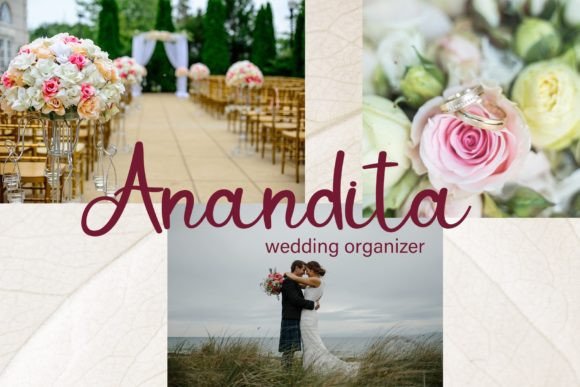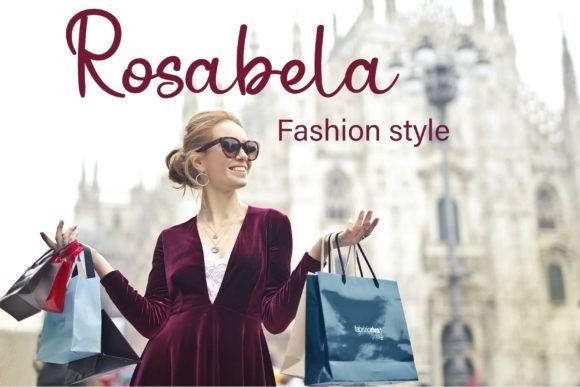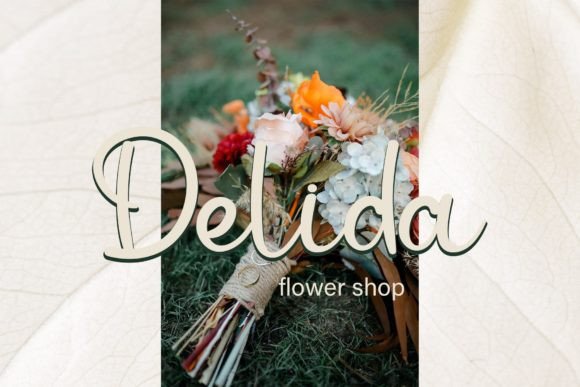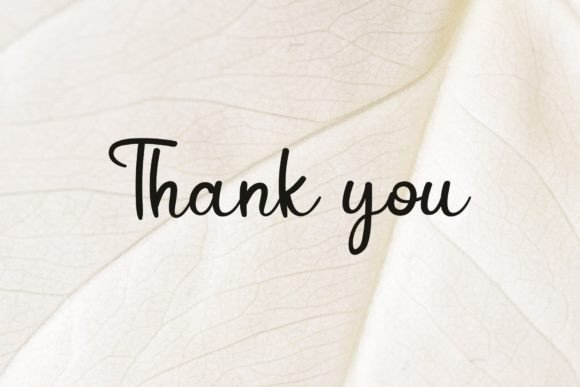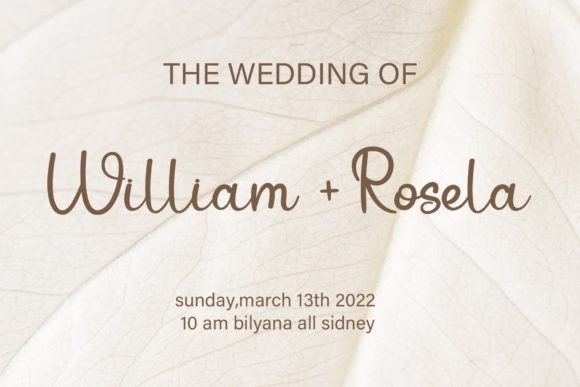
About White Font
White is a cool, simple, and playful handwritten font that stands out for its versatility. Incredibly adaptable, this font seamlessly complements a wide array of designs, elevating them to new heights. Add the White font to your favorite creative ideas, and experience how it breathes life into them, infusing a fresh and dynamic energy.
The cool and simple design of White makes it a standout choice for a variety of applications. Whether you’re working on branding, social media posts, product packaging, invitations, or any other creative project, White adds a touch of playfulness and charm that resonates with a diverse audience.
The versatility of White becomes evident as it effortlessly integrates into different design themes, adapting to the mood and style of your project. Its handwritten aesthetic adds a personal and approachable feel, making your content not only visually appealing but also relatable.
Imagine incorporating White into your branding efforts, where its simplicity contributes to a clean and modern identity. Picture it enhancing the visual appeal of your social media posts, injecting a playful element that captures attention and engagement.
In conclusion, White is more than just a font; it’s a design asset that brings a cool, simple, and playful vibe to your creations. Elevate your favorite creative ideas across various mediums and notice how White adds a dynamic touch that makes your projects come alive with style and personality.